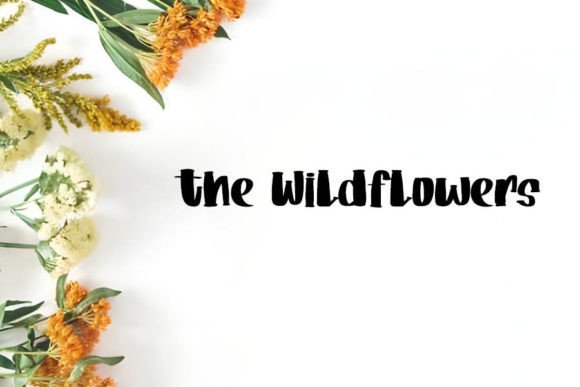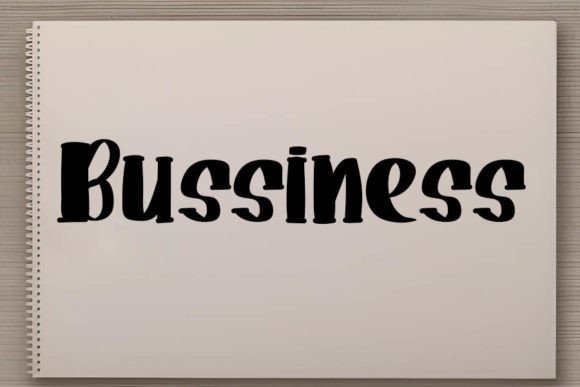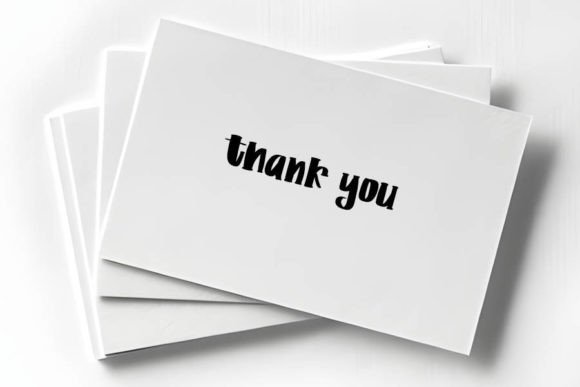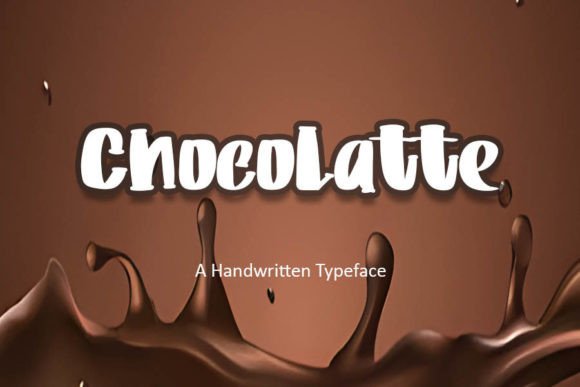
Introducing Chocolatte Font: The Perfect Choice for Romantic Designs
Are you a designer or crafter looking for a font that exudes romance and elegance? Look no further than Chocolatte Font, a modern romantic font with smooth flows that is perfect for a variety of design projects. In this article, we’ll take a closer look at the features and benefits of Chocolatte Font, and explore how it can elevate your designs to the next level.
What is Chocolatte Font?
Chocolatte Font is a beautifully crafted font that is designed to add a touch of romance and sophistication to any design project. With its smooth flows and elegant lines, this font is perfect for creating stunning logos, wedding stationery, cards, gift designs, photography watermarks, product packaging, and handwritten quotes.
Key Features of Chocolatte Font
• Modern Romantic Design: Chocolatte Font features a modern romantic design that is perfect for creating elegant and sophisticated designs.
• Smooth Flows: The font’s smooth flows make it easy to read and add a touch of elegance to any design project.
• Versatile: Chocolatte Font is a versatile font that can be used for a variety of design projects, from logos and wedding stationery to cards and product packaging.
• Elegant Lines: The font’s elegant lines make it perfect for creating stunning handwritten quotes and photography watermarks.
Chocolatte Font is perfect for designers and crafters who want to add a touch of romance and elegance to their designs. Whether you’re creating logos, wedding stationery, or handmade crafts, this font is sure to impress. With its smooth flows and elegant lines, Chocolatte Font is the perfect choice for anyone looking to create beautiful and sophisticated designs.
How to Use Chocolatte Font
• Logos: Use Chocolatte Font to create a stunning logo for your business or brand.
• Wedding Stationery: Add a touch of romance to your wedding stationery with Chocolatte Font.
• Cards: Create beautiful greeting cards and invitations with Chocolatte Font.
• Gift Designs: Use Chocolatte Font to create stunning gift designs, such as gift tags and wrapping paper.
• Photography Watermarks: Add a touch of elegance to your photography watermarks with Chocolatte Font.
• Product Packaging: Use Chocolatte Font to create beautiful product packaging that stands out.
• Handwritten Quotes: Create stunning handwritten quotes with Chocolatte Font.
Benefits of Using Chocolatte Font
There are many benefits to using Chocolatte Font in your design projects. Here are a few:
• Elegance: Chocolatte Font adds a touch of elegance and sophistication to any design project.
• Romance: The font’s romantic design makes it perfect for wedding stationery, love letters, and other romantic designs.
• Versatility: Chocolatte Font is a versatile font that can be used for a variety of design projects.
• Easy to Read: The font’s smooth flows make it easy to read, even at small sizes.
Font Name Chocolatte Font
Author Emily Store
In conclusion, Chocolatte Font is a beautiful and elegant font that is perfect for designers and crafters who want to add a touch of romance and sophistication to their designs. With its smooth flows and elegant lines, this font is perfect for a variety of design projects, from logos and wedding stationery to cards and product packaging. Whether you’re a professional designer or a crafter, Chocolatte Font is sure to impress.